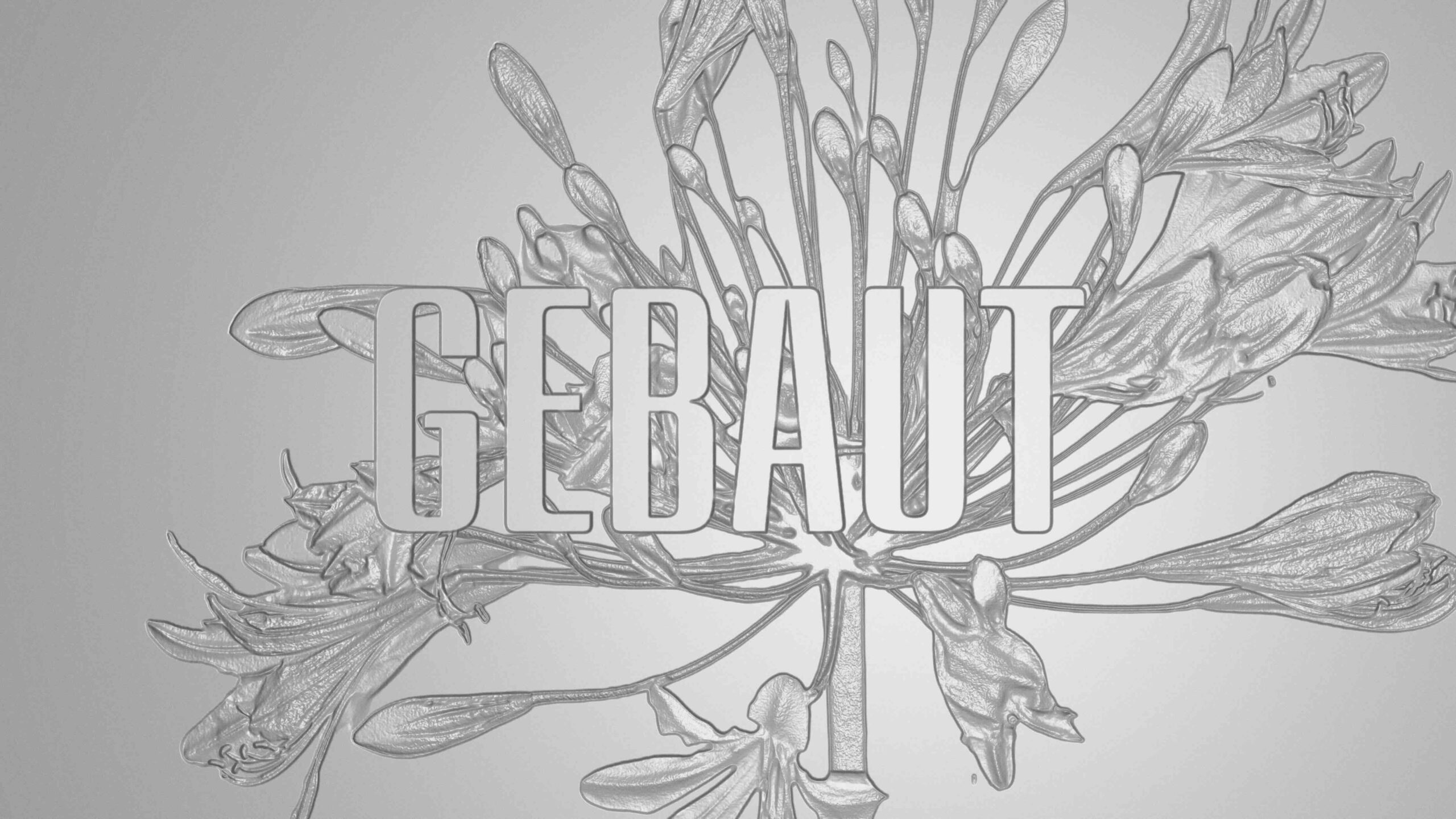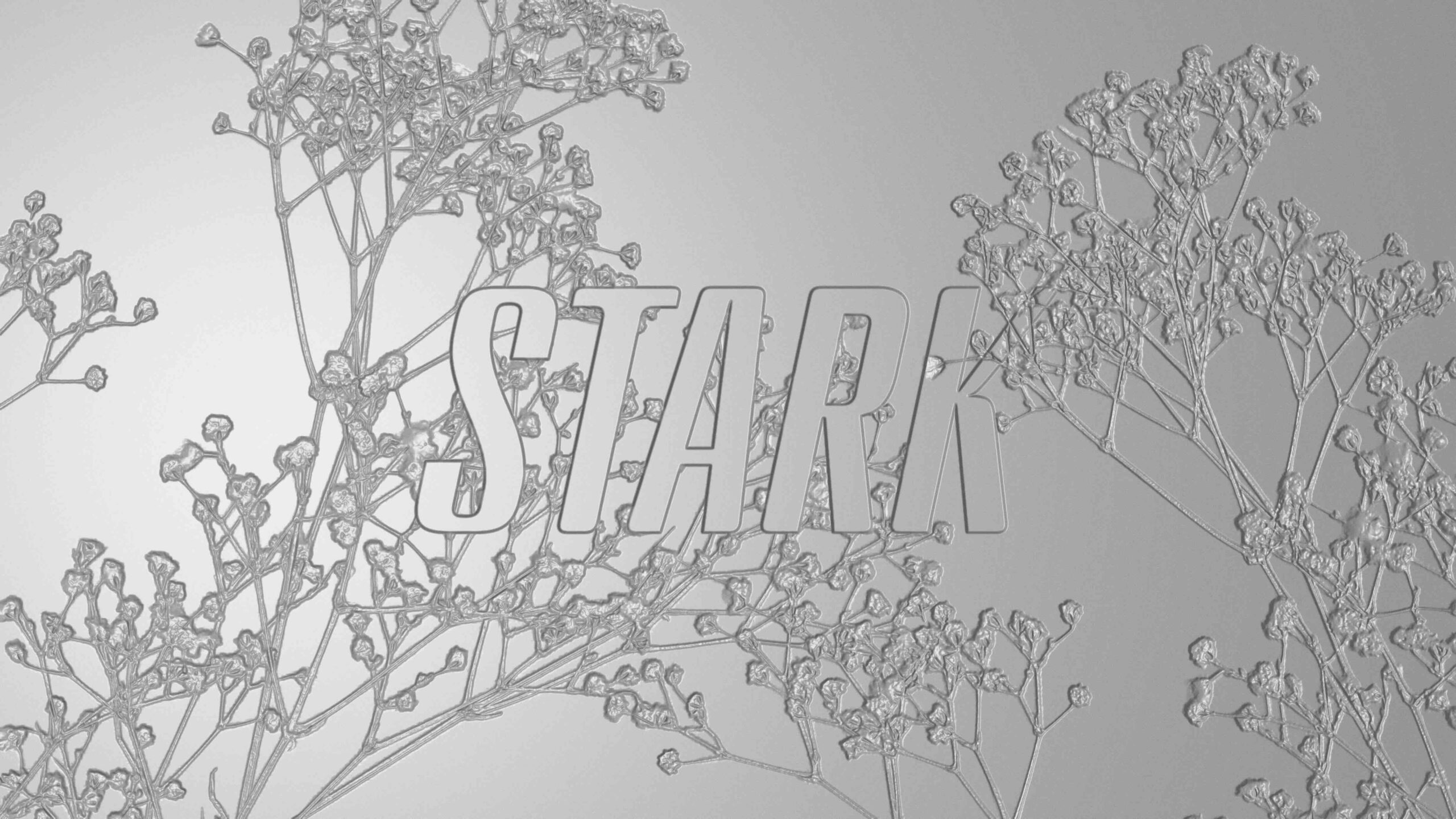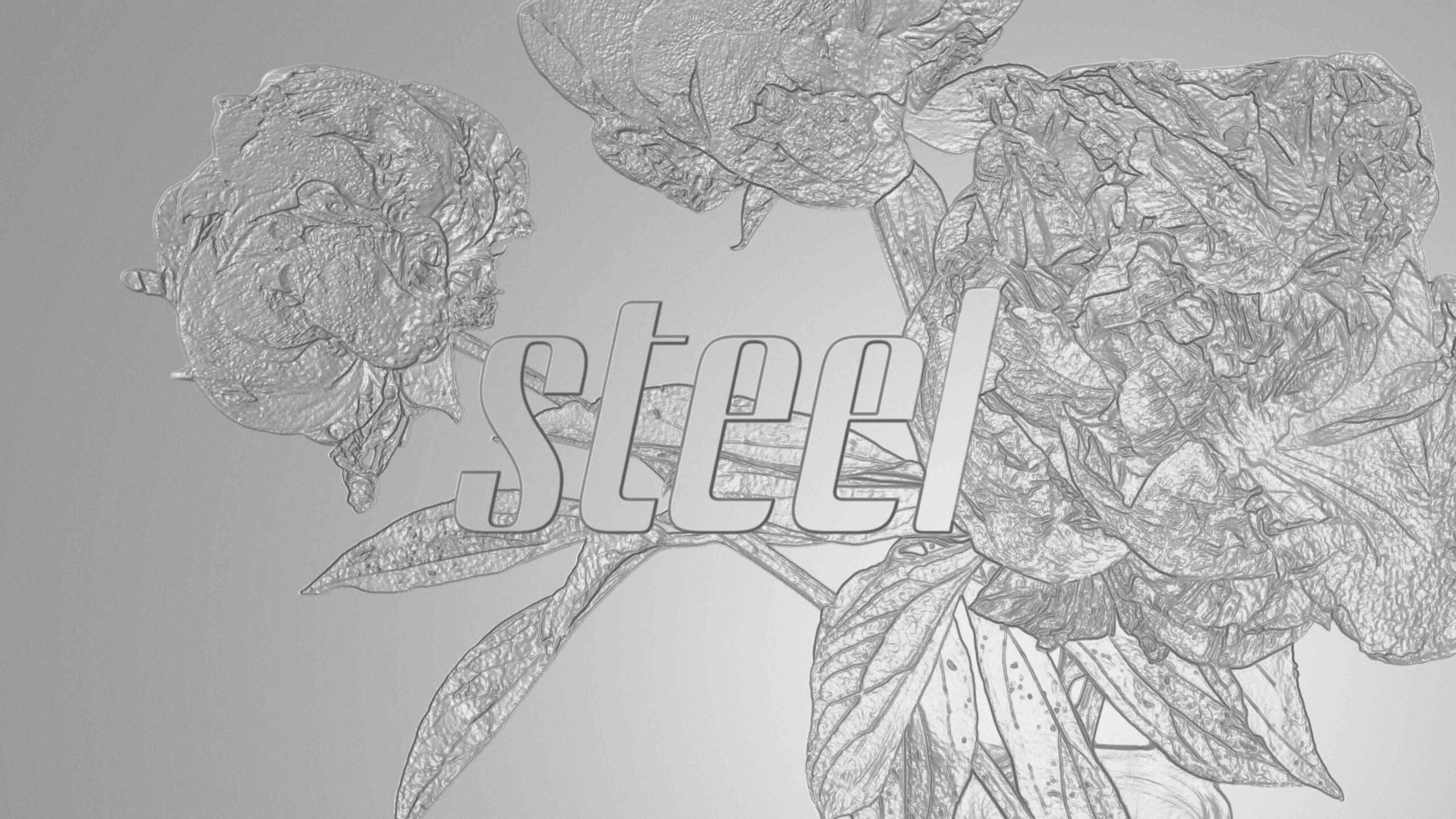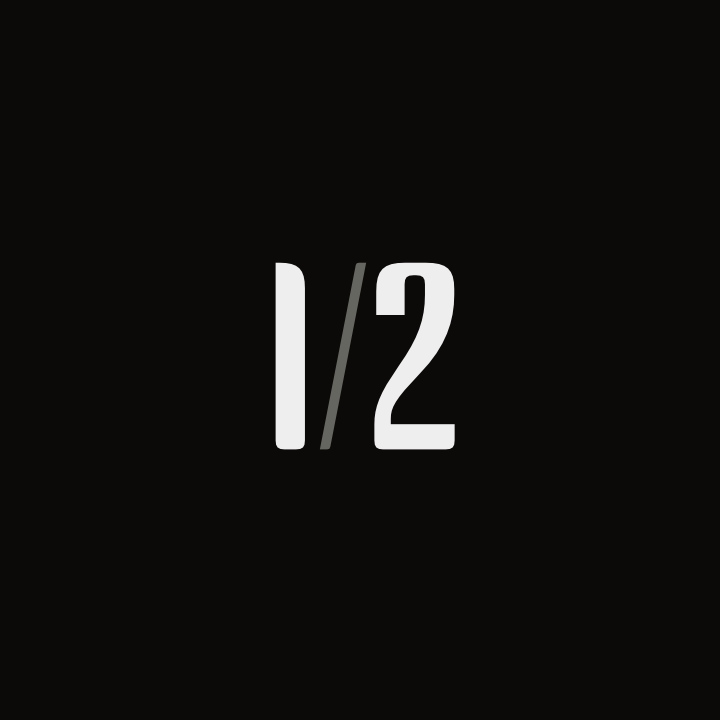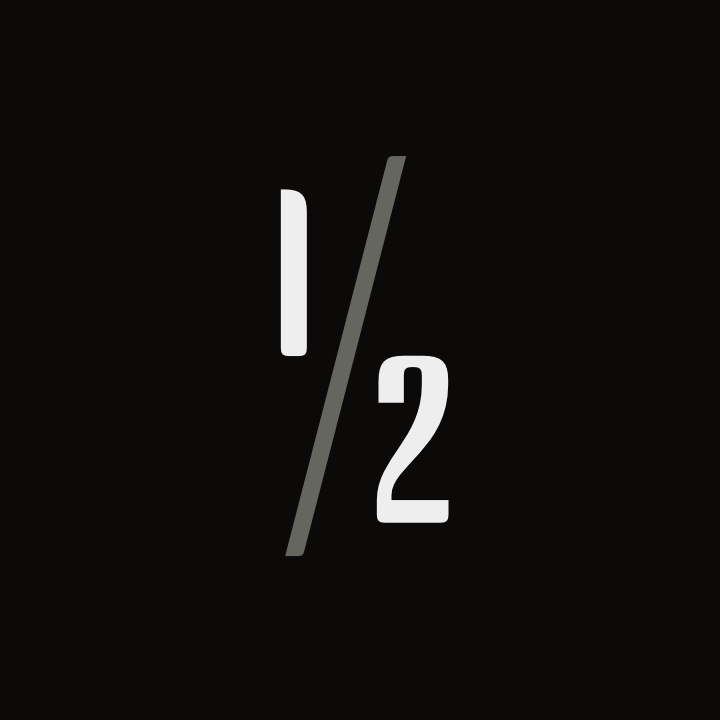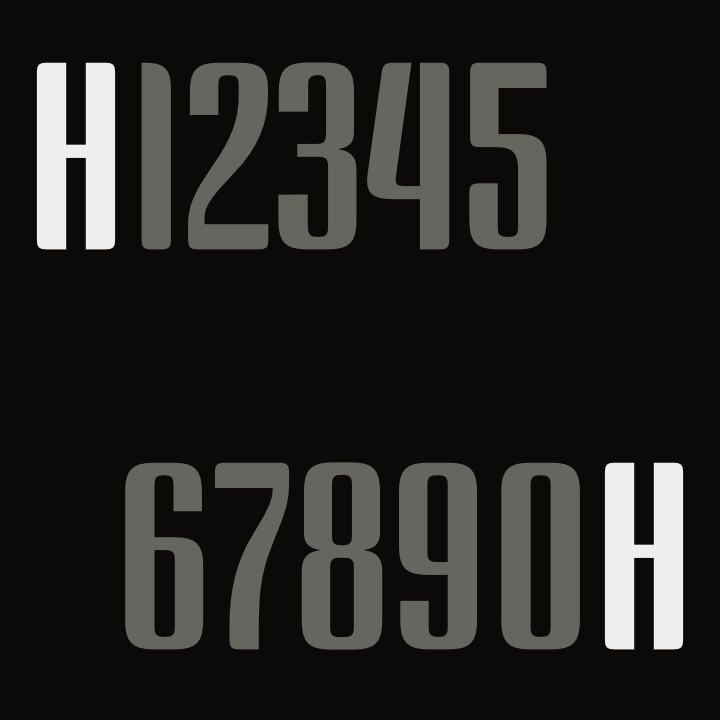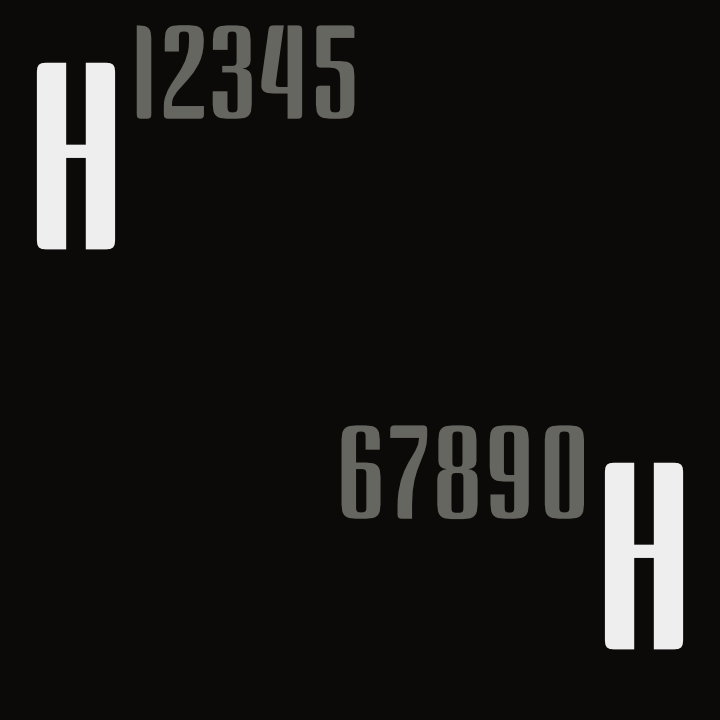
Staahl
Staahl is a modular display typeface developed in collaboration with graphic design studio Enen. Originally designed for the signage system of a school in western Switzerland, it was conceived as a single architectural typeface to be used consistently across the entire site.
Its design follows a semi-modular logic, with every outer corner sharing the same radius, echoing elements from the school’s architecture. In contrast, inner junctions are sharply defined, giving each letter a precise, constructed feel. This detail is visible, for example, in the e, where rounded contours meet sharp angled intersections.
BS Staahl features an optical size axis, available as a variable font, with contrast evolving from minimal to pronounced. The family includes three predefined styles, Elementary, Middle and High, each representing a distinct contrast level. Stems remain assertive, while diagonals and horizontals are more restrained, especially in the High style. In addition to these core styles, the typeface is also available in Italic and Backslanted.
The rhythm is compact and robust. Certain glyphs, such as M, N, W and w, break the underlying structure with more opportunistic contrast, adding nuance to the otherwise brutalist typography system. With tight spacing and a high x-height, BS Staahl performs best at large sizes, where its unicase flavor and visual tension can fully emerge.